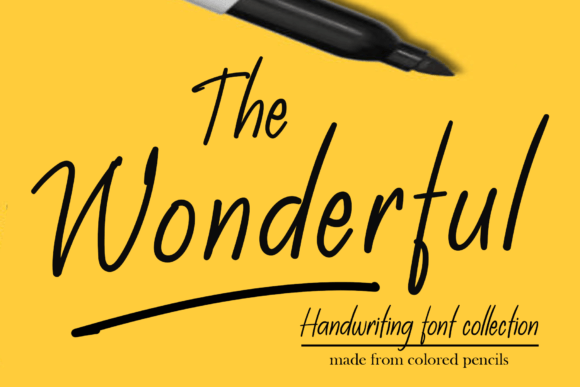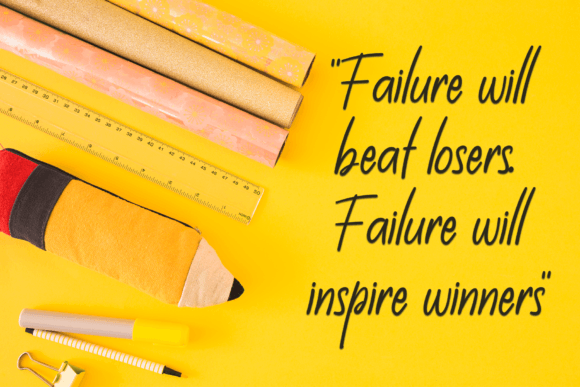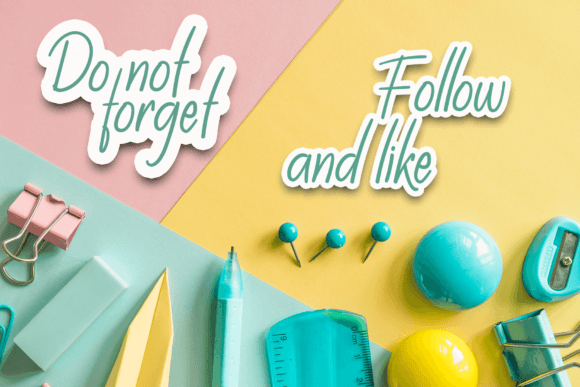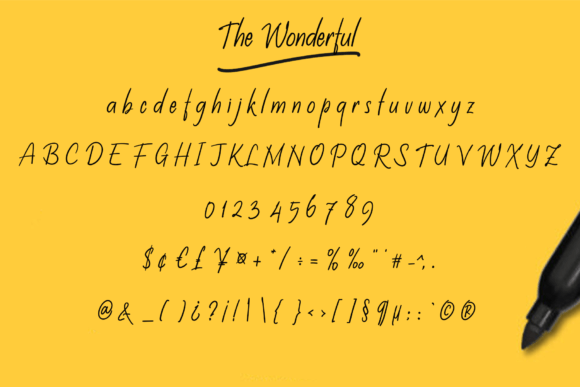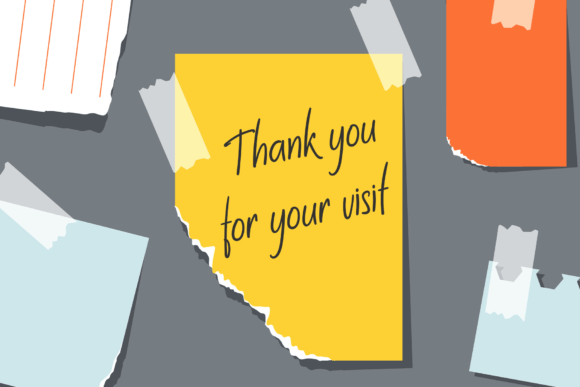
The Wonderful Font
About The Wonderful Font
“The Wonderful” font is a testament to elegance and style, seamlessly blending contemporary aesthetics with the timeless allure of classic calligraphy. Its graceful strokes and meticulously crafted letterforms create a visual masterpiece that enhances the beauty of any project it graces.
In the realm of wedding invitations, “The Wonderful” adds a touch of sophistication and romance. Its delicate curves and refined details evoke a sense of timeless love, setting the perfect tone for a memorable celebration. The font’s versatility allows it to adapt seamlessly to various wedding themes, making it a favorite choice among couples seeking a touch of elegance for their invitations.
For branding and logo design, “The Wonderful” stands out as a mark of sophistication. Its balanced proportions and distinctive style make it ideal for businesses and products that aim to convey a sense of luxury and refinement. Whether used in high-end fashion branding, premium cosmetics, or gourmet products, this font elevates the brand identity, leaving a lasting impression on consumers.
In the world of social media and digital content, “The Wonderful” font adds a touch of class to quotes, posts, and promotional materials. Its effortlessly chic appearance enhances the visual appeal of social media graphics, making them more shareable and engaging. Bloggers, influencers, and content creators find in this font a valuable tool to elevate their online presence and captivate their audience.
For print materials such as greeting cards, stationery, and posters, “The Wonderful” lends an air of sophistication and artistry. Its impeccable form and elegant curves transform ordinary designs into extraordinary pieces of art. Whether used for holiday cards, special occasion invitations, or inspirational posters, this font enhances the emotional impact of the message, leaving a lasting impression on the recipients.
“The Wonderful” font’s versatility knows no bounds, making it an indispensable asset for designers, businesses, and creatives alike. Its ability to enhance the beauty of various projects, coupled with its contemporary yet timeless charm, sets it apart as a font that truly lives up to its name. With “The Wonderful” font, every project becomes a masterpiece, radiating elegance and leaving a lasting impression on all who behold it.